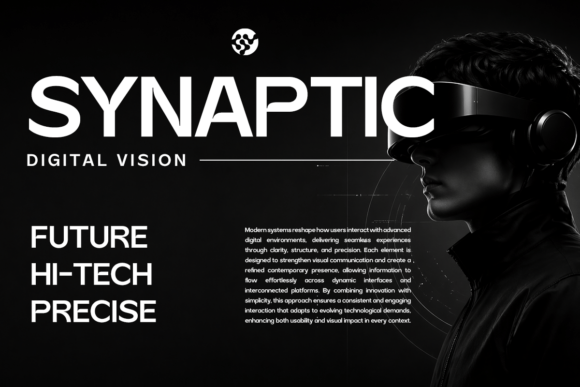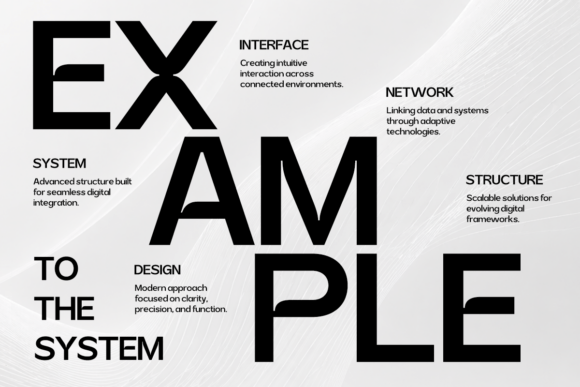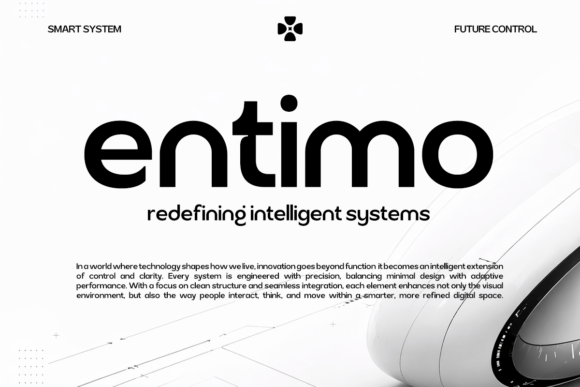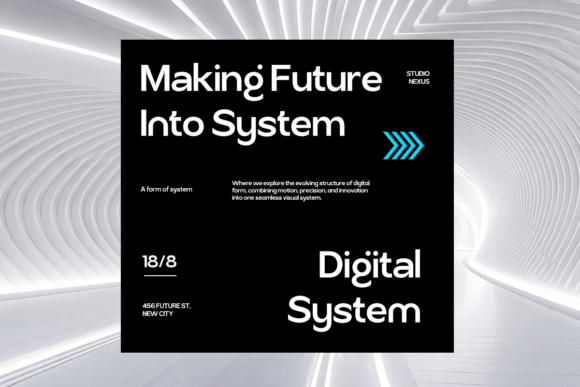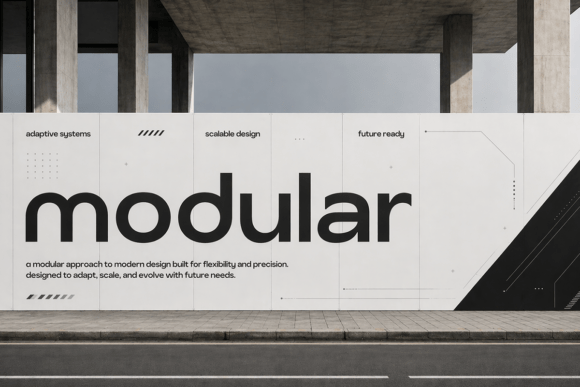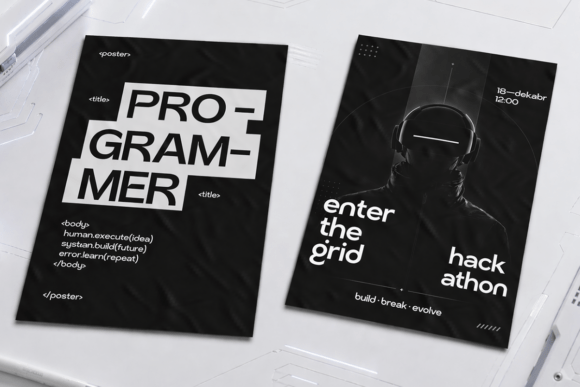
Introduction to Ragonte Font
Introducing Ragonte, a futuristic geometric sans serif font designed for modern technology and digital branding.
With clean curves, bold proportions, and minimalist letterforms, this typeface delivers a sleek and professional futuristic aesthetic perfect for today’s creative industry Ragonte is ideal for tech startups, gaming projects, UI/UX design, esports branding, sci-fi posters, automotive visuals, social media content, and modern corporate identities.
Key Features of Ragonte Font
Why Choose Ragonte Font?
Ragonte Font offers exceptional quality and versatility, making it a valuable addition to your design toolkit. Whether you’re creating for personal projects or commercial use, Ragonte Font delivers professional results.